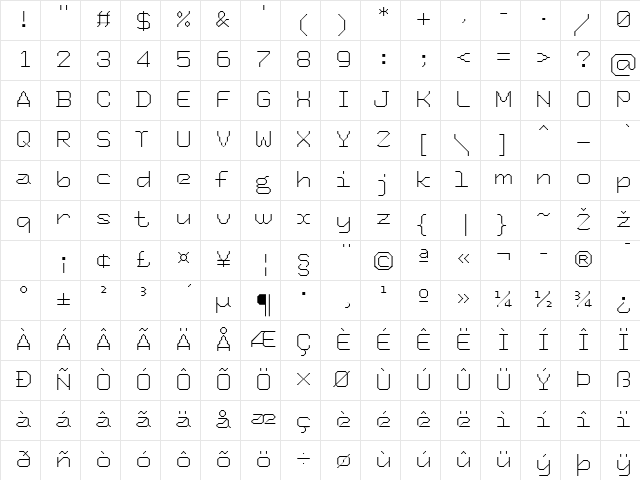
TronicLF-Light Regular
| Foundry | Hyun Cho, Sung Min Choi; published by FontShop International for the FontFont Library |
| Designer | Hyun Cho, Sung Min Choi |
Design Context for TronicLF-Light Typeface
TronicLF-Light takes a measured approach to typography — its balanced proportions and neutral character make it a reliable workhorse for both digital and print work. Its slender proportions lend an understated elegance to any composition.